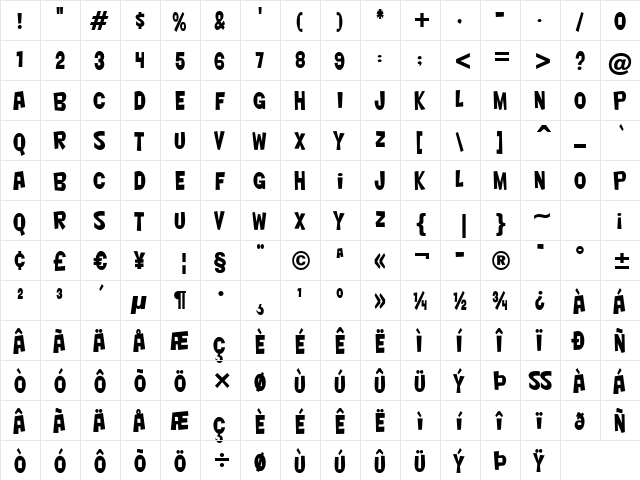
Nightclub BTN Cn Regular Font Preview
Nightclub BTN Cn Regular
Nightclub BTN Cn Regular Font Details
Design Context for Nightclub BTN Cn Typeface
Nightclub BTN Cn offers clean, dependable letterforms without strong stylistic allegiance, making it a practical choice for designers who need flexibility.